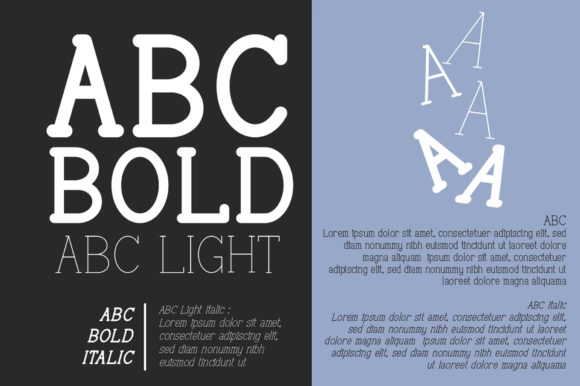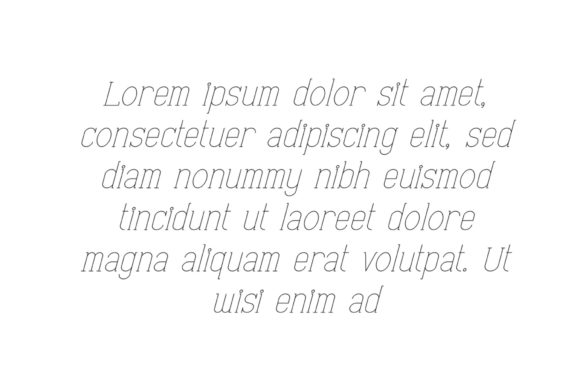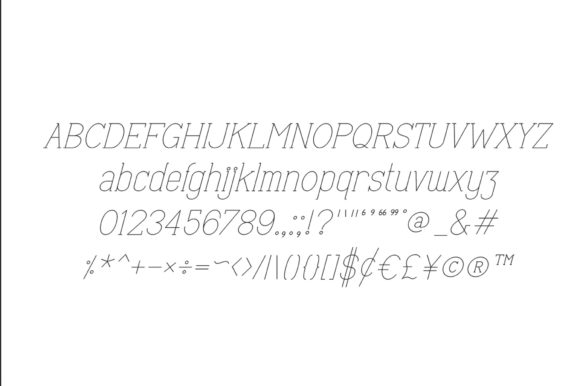
Discover the Elegance of ABC Light Italic Font
In the world of typography, fonts play a crucial role in conveying messages, expressing creativity, and enhancing the visual appeal of any design. Among the myriad of fonts available, the ABC Light Italic font stands out for its clean, simple, and elegant serif design. Ideal for a wide range of applications, from writing books and web designs to creating business cards and more, this font is a versatile choice for designers and crafters looking to add a cool touch to their projects.
Characteristics of ABC Light Italic Font
The ABC Light Italic font is characterized by its:
- Clean Design: The font boasts a clean and uncluttered design, making it highly legible and perfect for long texts.
- Simple Serif: Its simple serif design adds a touch of elegance and sophistication, making it suitable for both traditional and modern designs.
- Light Weight: The “light” aspect of the font refers to its weight, which is on the lighter side. This feature makes it an excellent choice for designs where a subtle yet impactful font is needed.
- Italic Style: The italic version of the font adds a dynamic and stylish flair, perfect for emphasizing certain parts of the text or creating a distinctive look.
Uses of ABC Light Italic Font
The versatility of the ABC Light Italic font makes it suitable for a variety of uses:
- Book Writing: For authors and publishers looking for a font that is easy on the eyes, ABC Light Italic is an excellent choice. Its clean and simple design ensures that readers can focus on the content without being distracted by the font.
- Web Design: In the digital realm, fonts play a crucial role in user experience. ABC Light Italic font can add a professional and elegant touch to websites, making it more appealing to visitors.
- Business Cards: For business cards, a font can communicate a lot about your brand. The ABC Light Italic font, with its elegant and professional look, is perfect for businesses aiming to make a good impression.
- Crafting and DIY Projects: Crafters and DIY enthusiasts can also use this font for various projects, such as making planners, journals, or any other paper crafts. Its aesthetic appeal can elevate the look of any handmade project.
Why Choose ABC Light Italic Font?
There are several reasons why designers and crafters might prefer the ABC Light Italic font:
- Legibility: Its simple and clean design ensures high legibility, even at smaller sizes.
- Versatility: The font’s elegance and simplicity make it suitable for a wide range of projects.
- Aesthetic Appeal: The light and italic styles combine to create a visually appealing text that can enhance any design.
- Easy to Pair: The ABC Light Italic font can be easily paired with other fonts to create a unique and harmonious design.
The ABC Light Italic font is a valuable addition to any designer’s or crafter’s toolkit. Its clean and simple serif design, combined with its light and italic styles, make it a versatile and elegant choice for a variety of projects. Whether you’re working on a book, a website, a business card, or a DIY project, this font can add a cool and sophisticated touch. With its high legibility, aesthetic appeal, and ease of use, the ABC Light Italic font is sure to become a favorite among designers and crafters alike.
The ABC Light Italic font is more than just a typeface; it’s a design element that can elevate your projects with its simplicity, elegance, and versatility. Whether you’re a professional designer or a crafting enthusiast, this font is sure to inspire and enhance your creative endeavors.